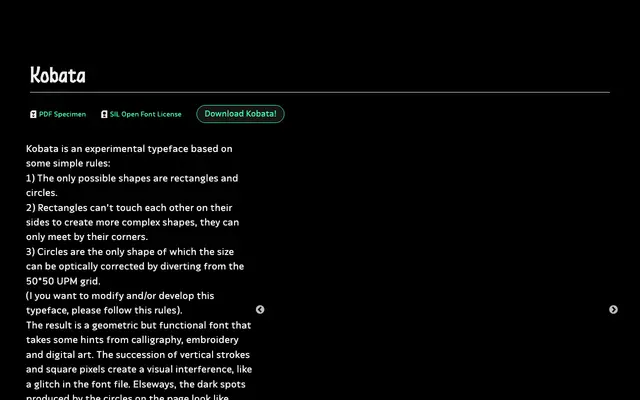
Kobata
A rule-based experimental face built solely from rectangles and circles, producing a geometric rhythm with glitch-like visual interference.
Designed by Ariel Martín Pérez and released under the SIL Open Font License, Kobata restricts its construction to two shapes: rectangles, which may only meet at corners, and circles, the sole shape permitted optical correction beyond the 50×50 UPM grid. The result draws loose references from calligraphy, embroidery and pixel art, with vertical stroke repetition generating a visual interference akin to a digital glitch, while circular counters read as dark spots on the page. A bold style and variable version were added in March 2020, with the bold pushing further from the grid to introduce new contrast variation.
Built entirely from rectangles and circles on a strict grid, Kobata is a rigorously geometric experimental display face with no conventional typographic construction; its rule-based structure and visual interference effects place it firmly in the display category.